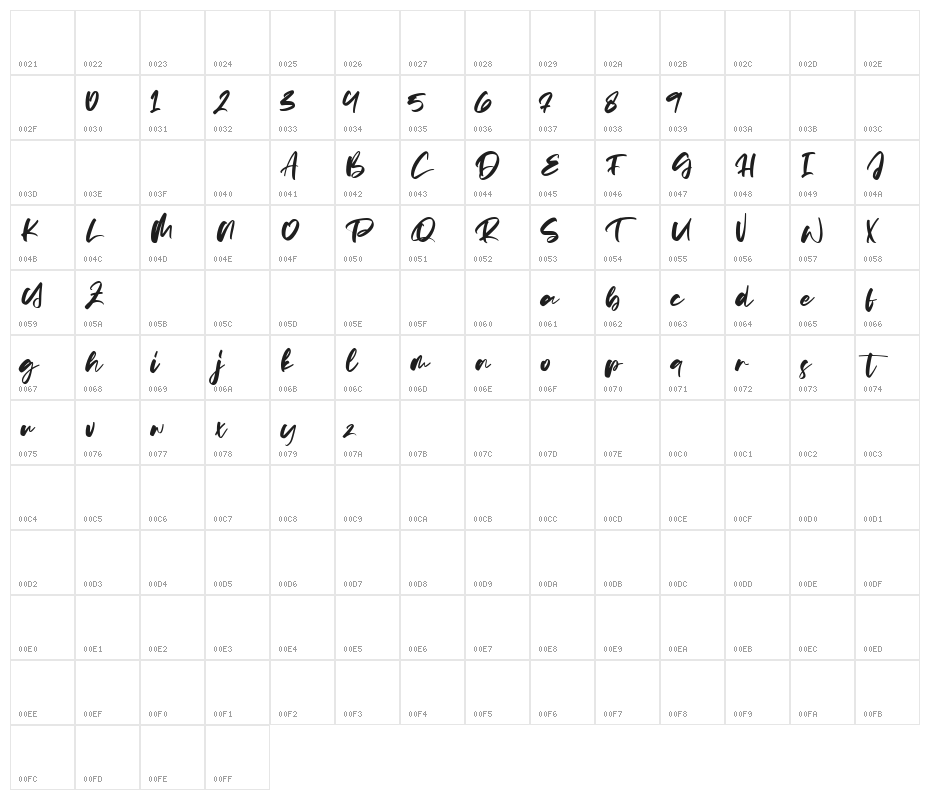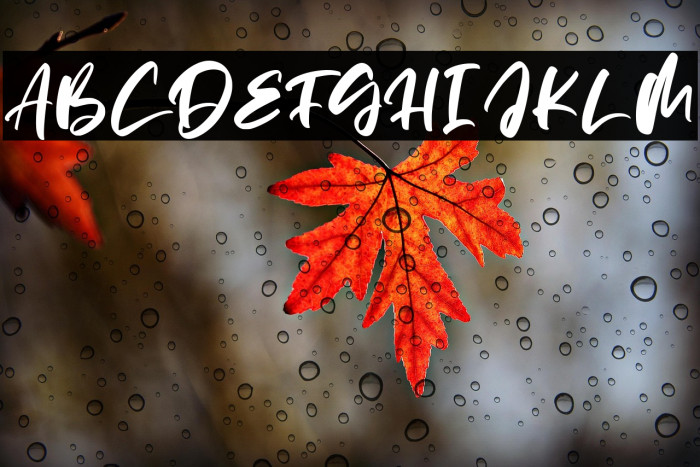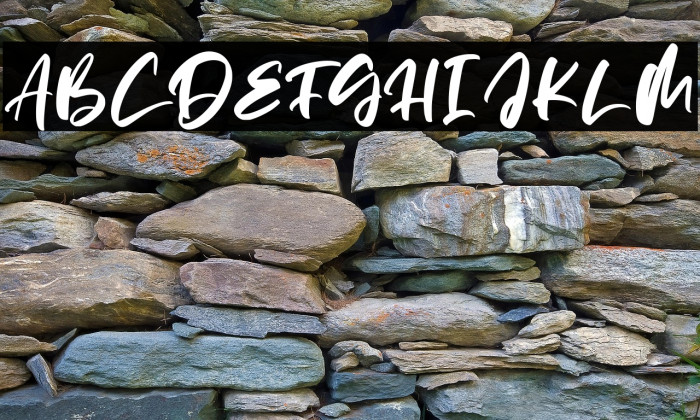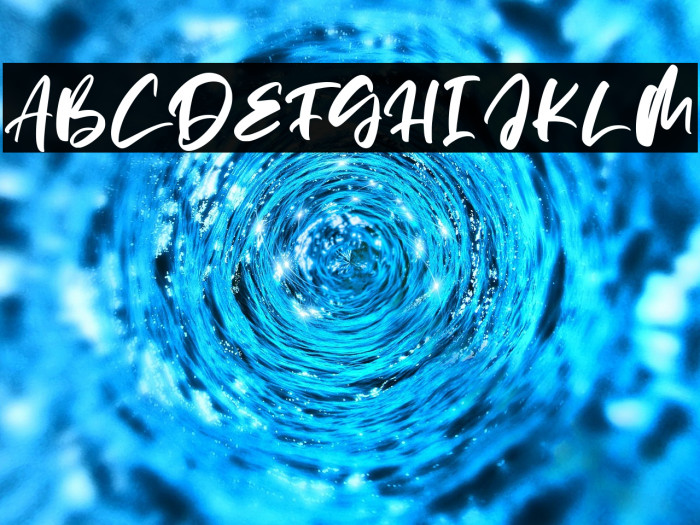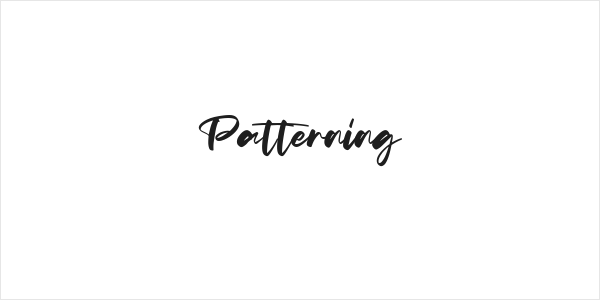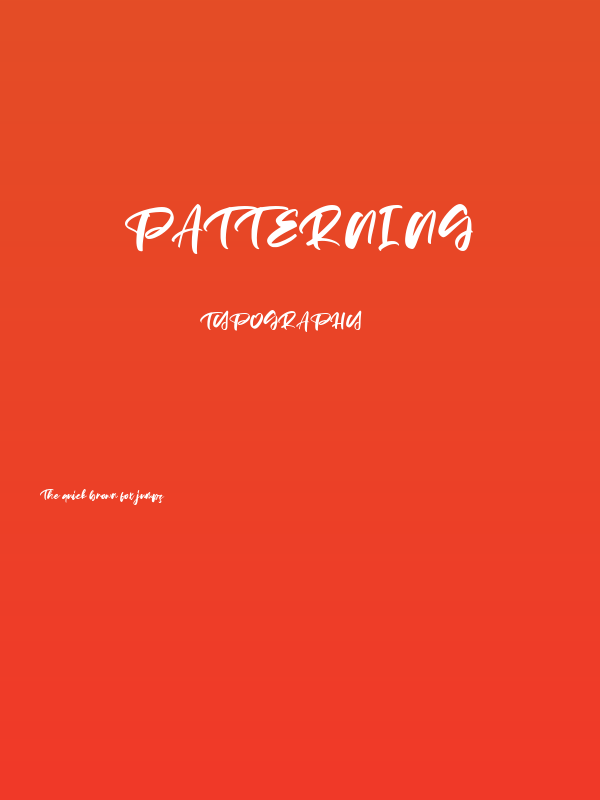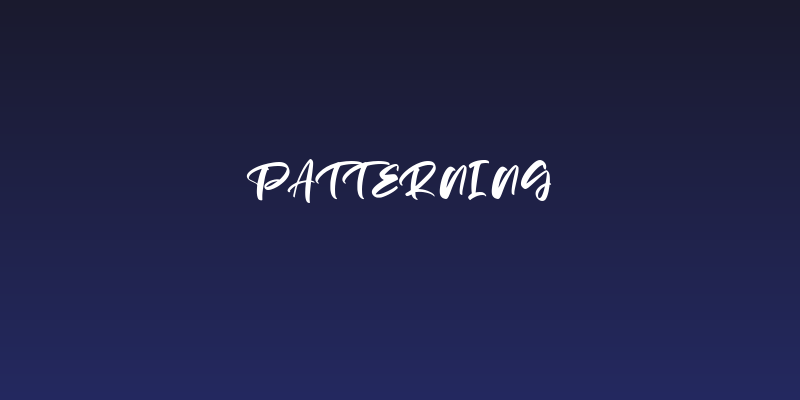
Patterning Font
Patterning Description
This font exhibits a bold and expressive handwritten style, characterized by its fluid and dynamic strokes. The letters are crafted with a sense of movement, giving them a lively and energetic appearance. The uppercase and lowercase letters maintain a consistent style, with the uppercase being slightly more structured while the lowercase retains a casual flair. The numbers follow the same expressive style, ensuring uniformity across all characters. The special characters are seamlessly integrated, maintaining the overall aesthetic. This font's boldness and unique style make it stand out, perfect for projects that require a personal touch.
| Use Case | Logos, Headlines, Posters |
| Proposed Projects | Ideal for branding, invitations, posters, and social media graphics where a personal and lively touch is desired. |